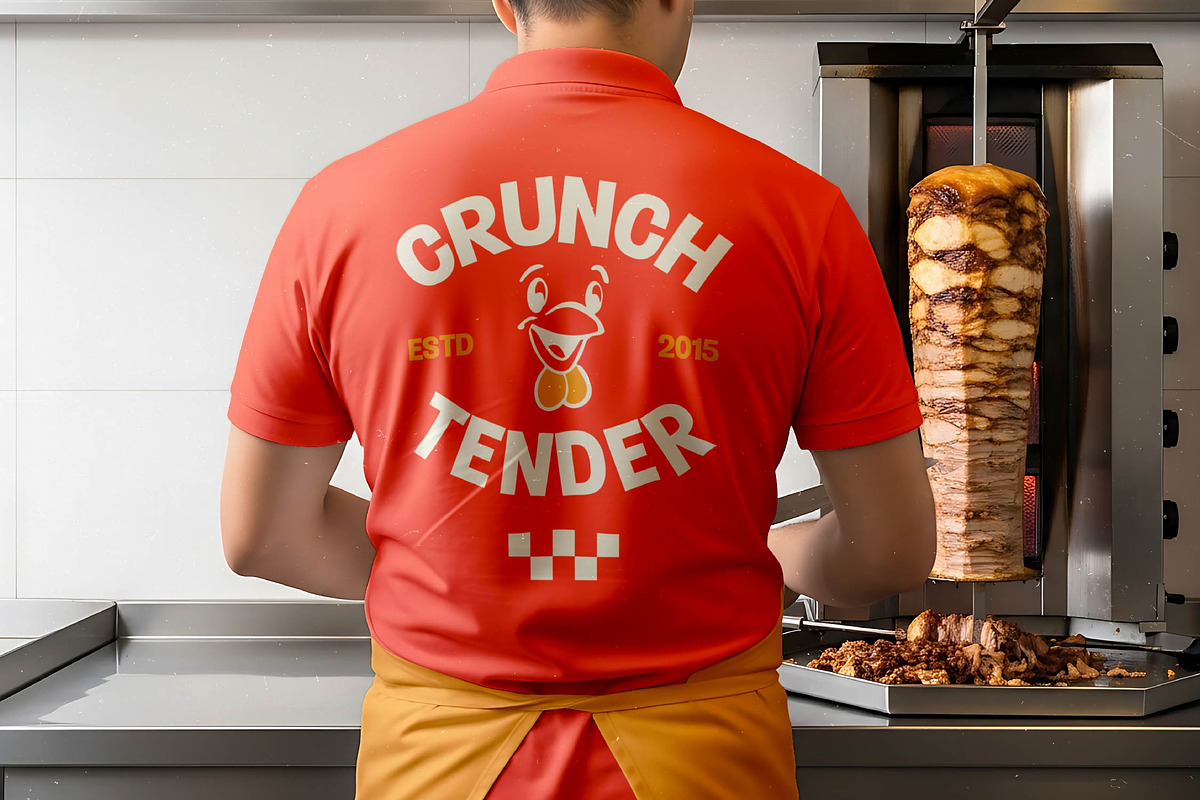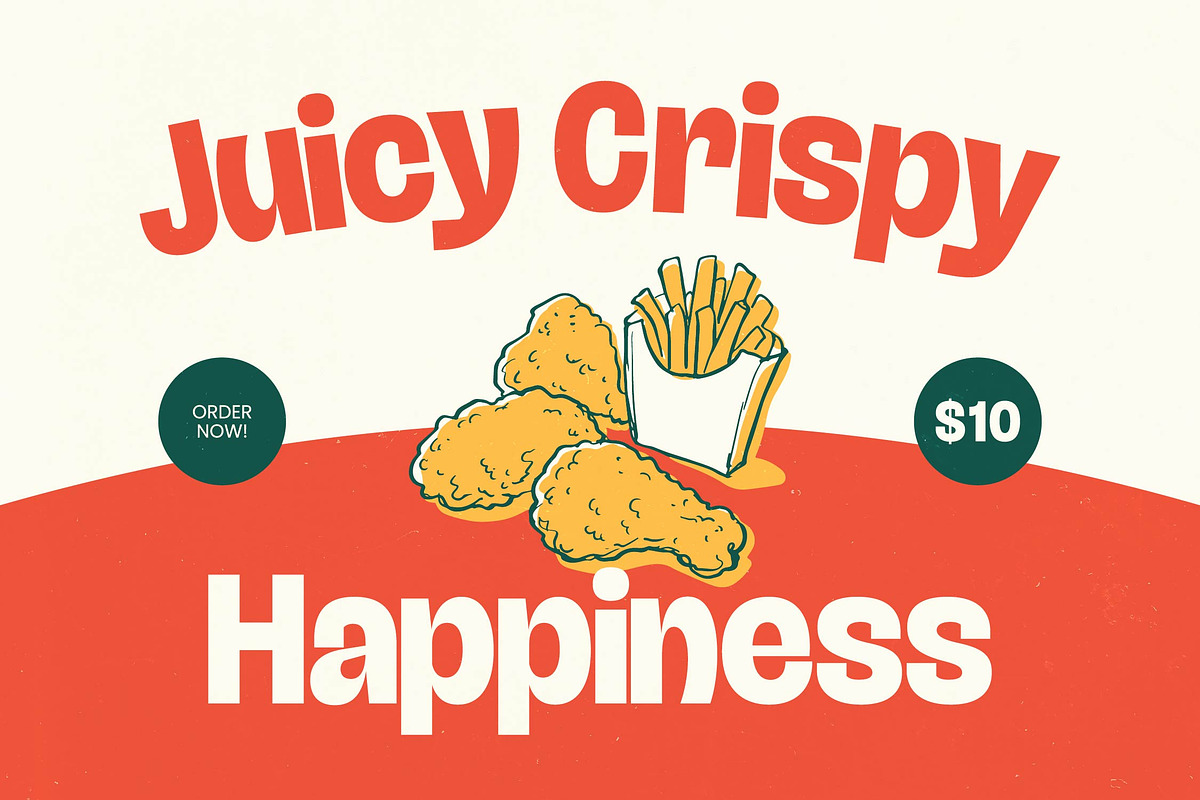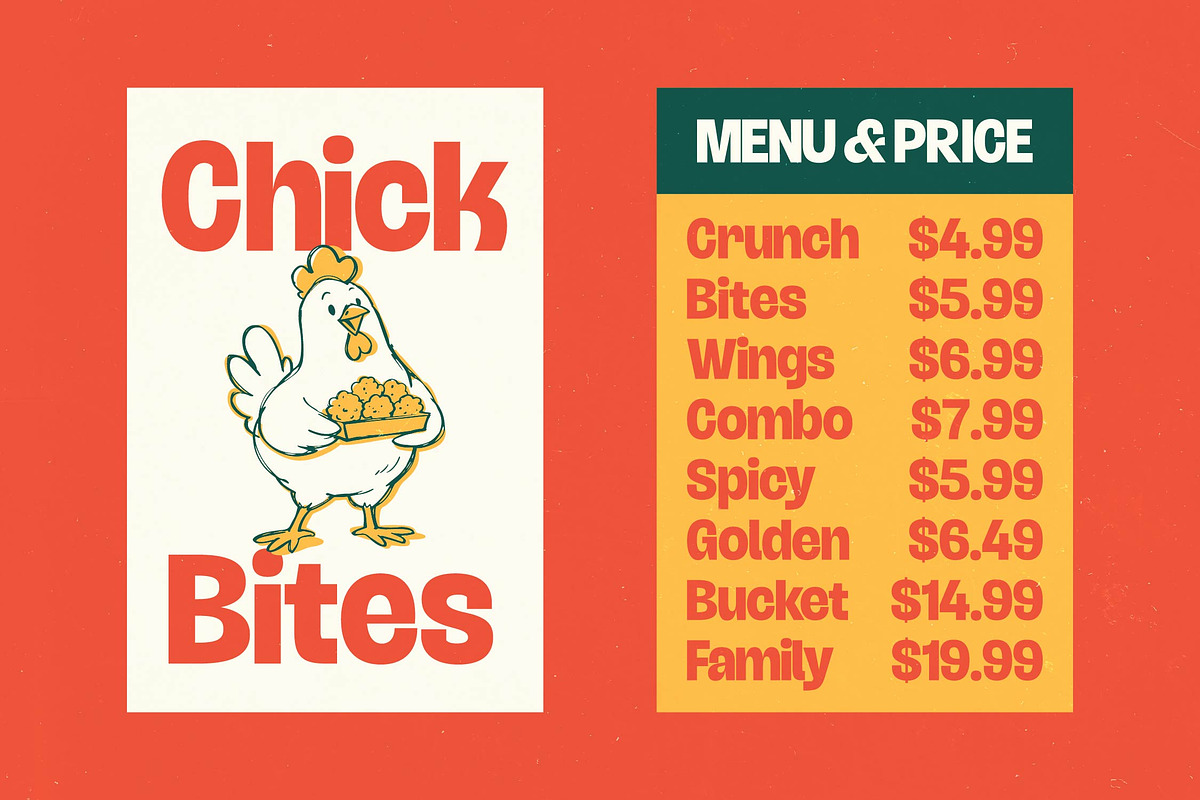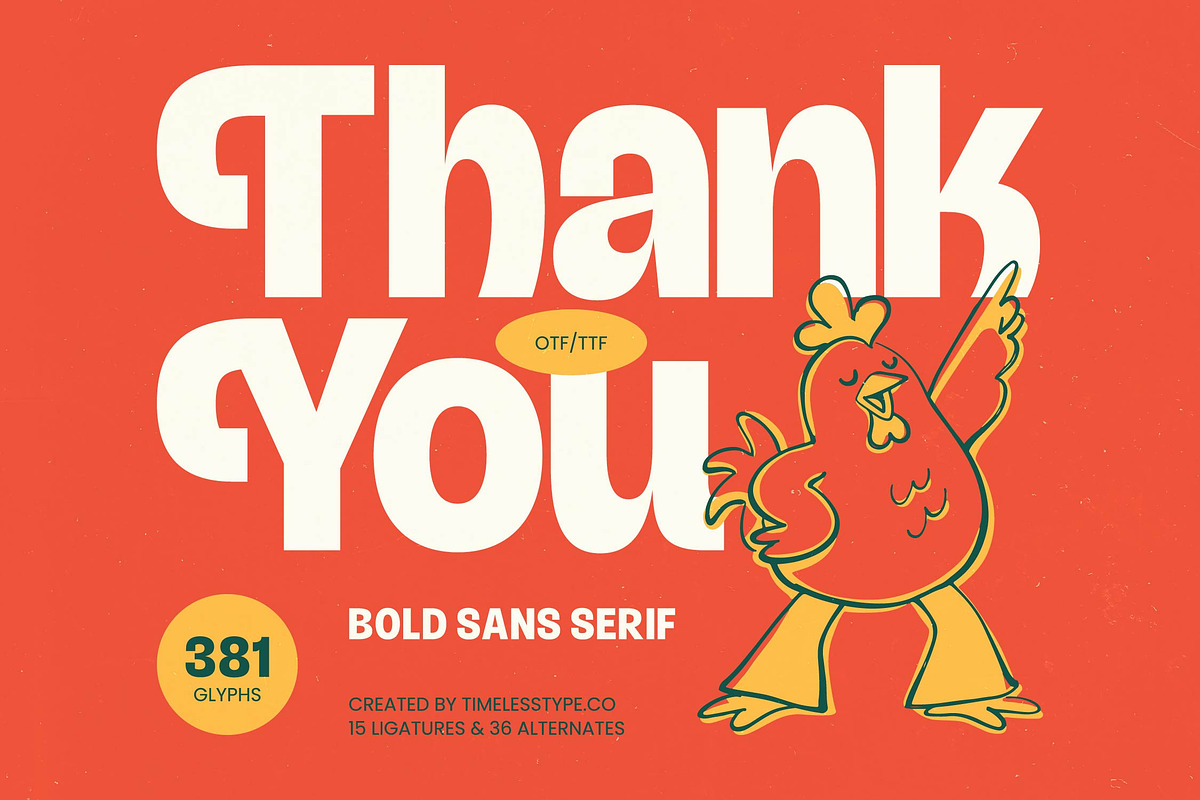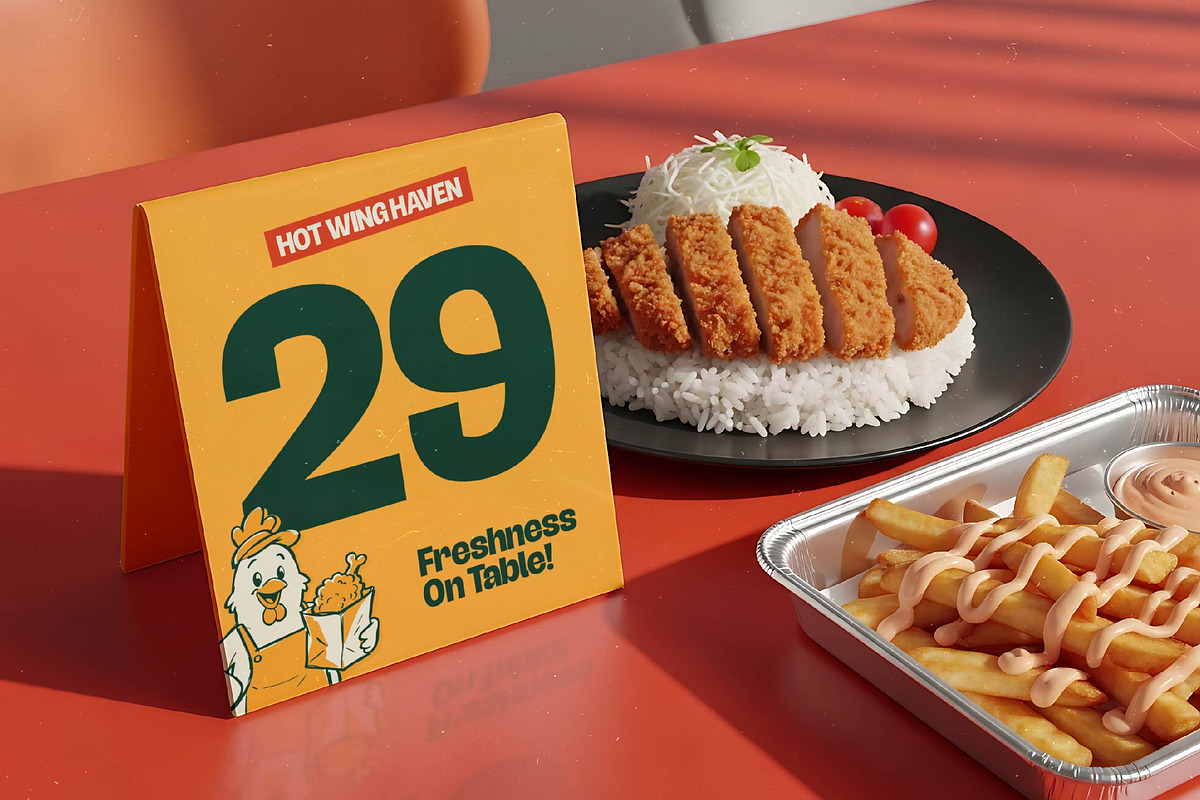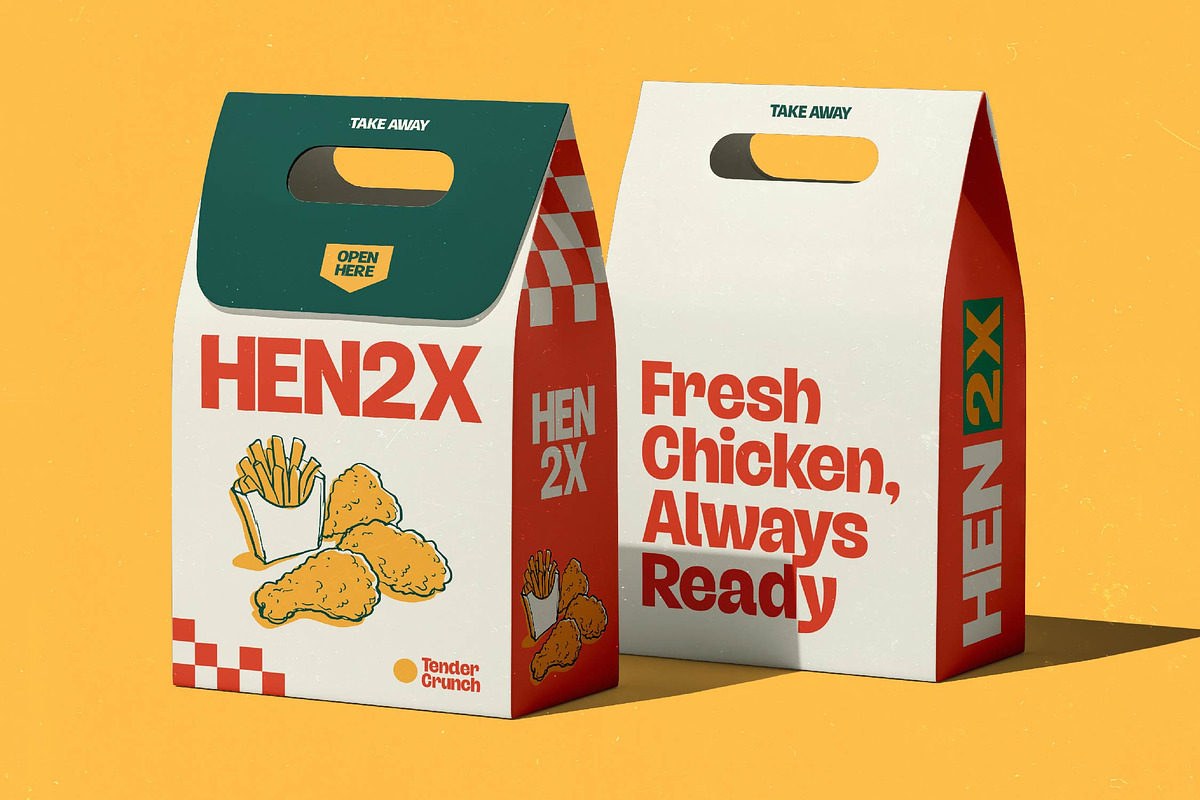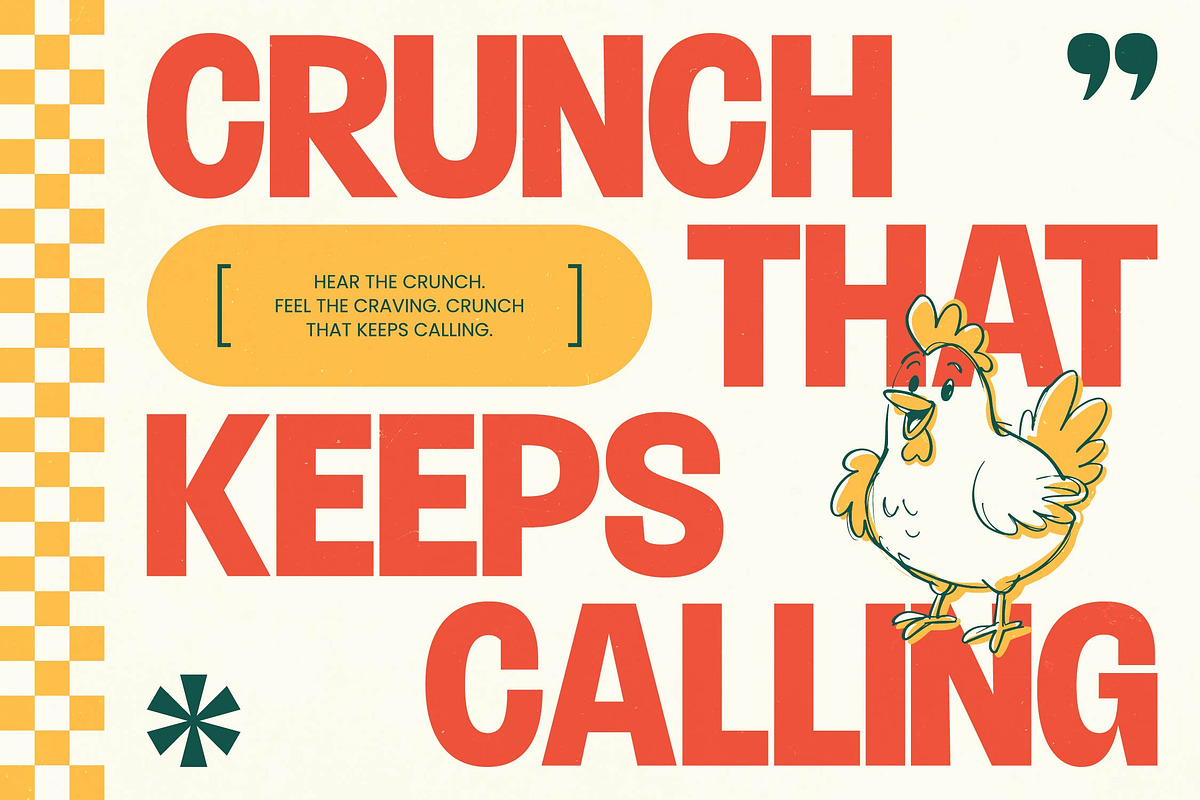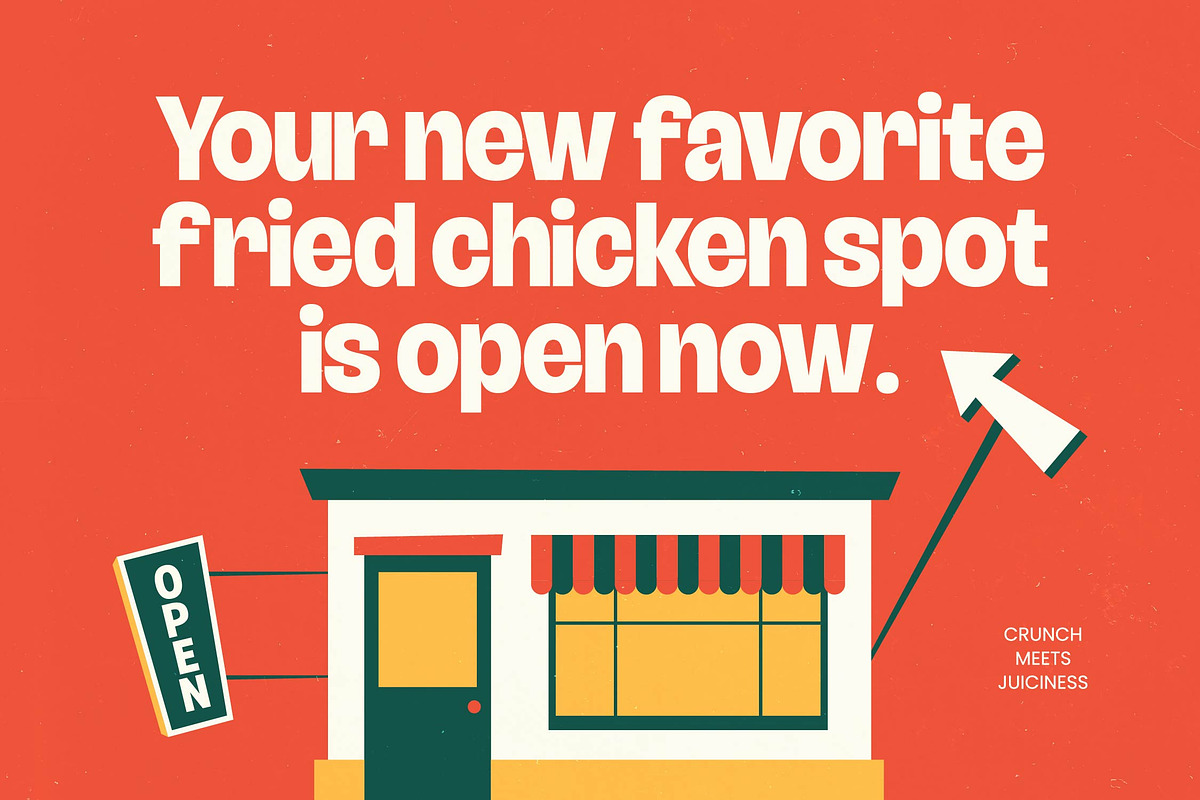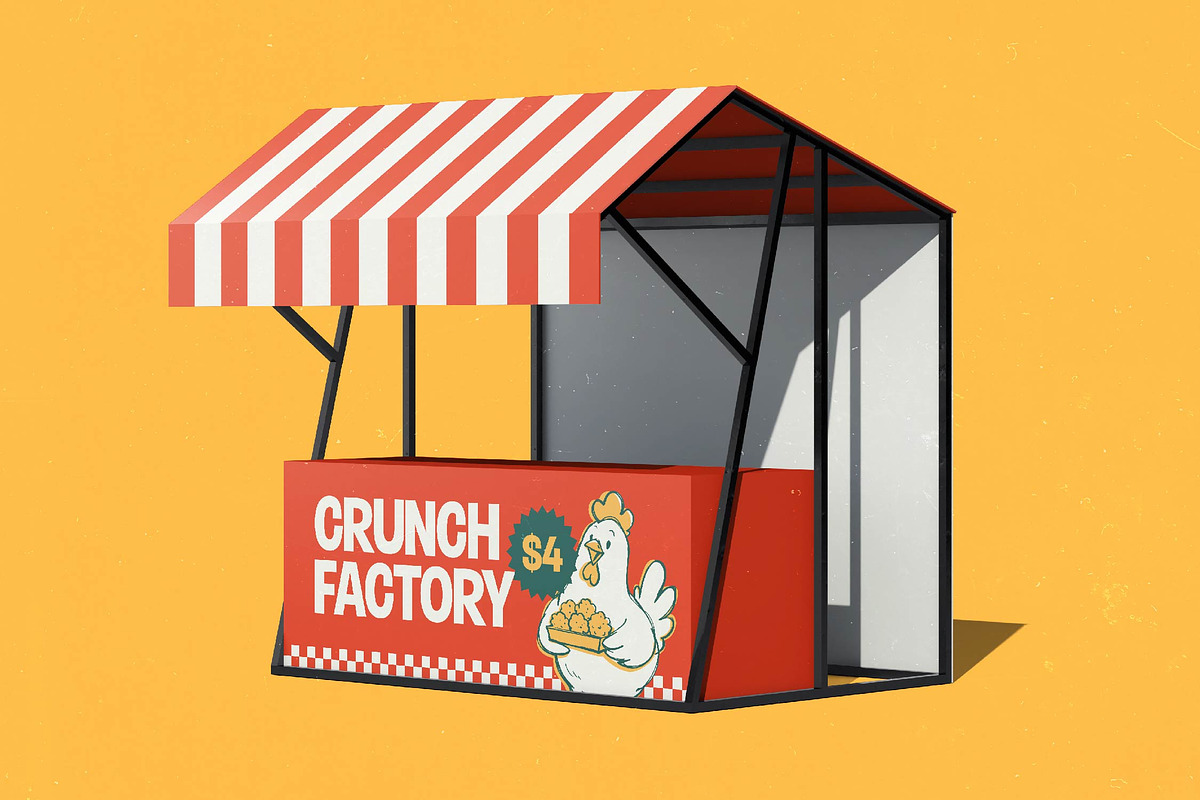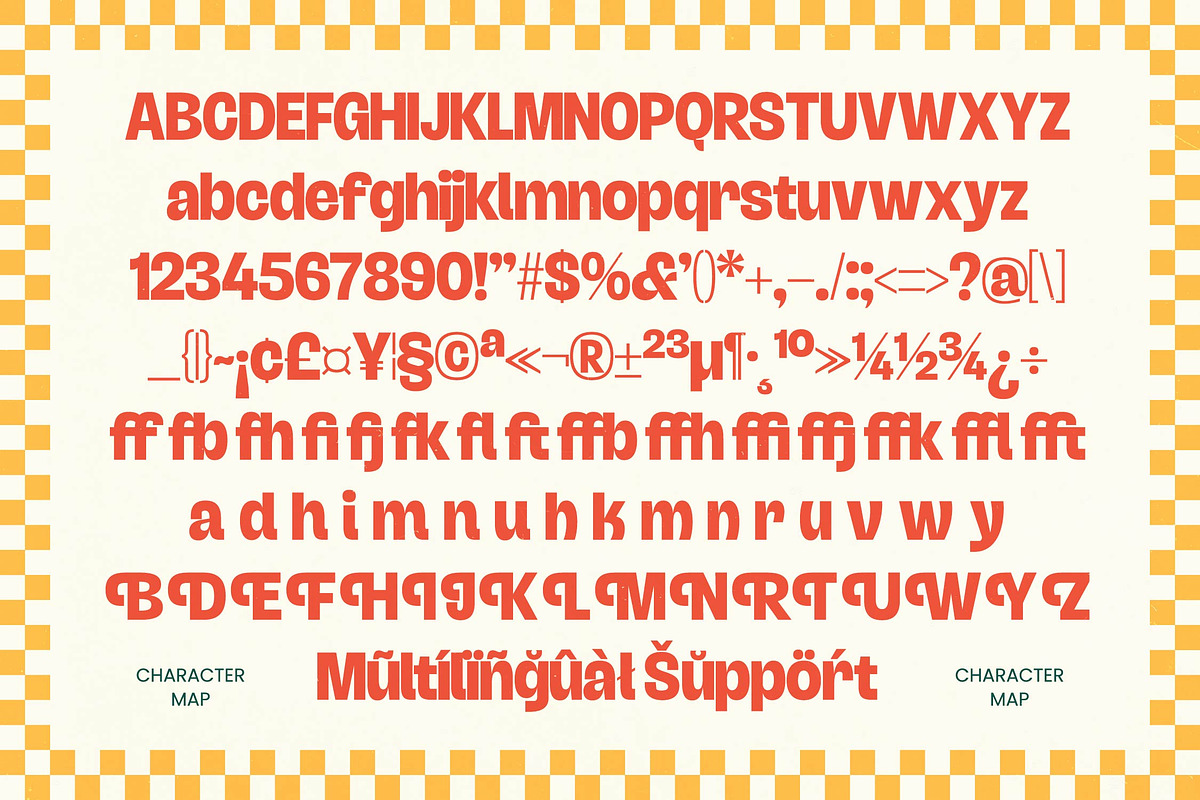
Roster Funy Bold Sans Serif
Roster Funy – Bold Sans Serif , Elevate your brand’s visual identity with a typeface that demands immediate attention and radiates personality. Roster Funy – Bold Sans Serif is a masterclass in bold typography, blending a retro-modern aesthetic with a playful, high-impact weight. This bold sans serif delivers an unmatched presence, making it the premier choice for designers looking to inject vibrant energy and distinctive character into their creative projects.
Experience unparalleled flexibility with a professional font designed to meet the most demanding creative standards. Featuring 381 meticulously crafted glyphs, Roster Funy – Bold Sans Serif includes a rich selection of 15 ligatures and 36 alternates that allow for custom-tailored layouts and unique typographic compositions. With its extensive multilingual support, Roster Funy – Bold Sans Serif adapts seamlessly across global markets, making it incredibly versatile for international projects.
Transform your brand storytelling through strategic and high-impact design applications that resonate with your audience. This typeface is an ideal application for creative packaging, lifestyle branding, and dynamic editorial layouts where a strong, friendly statement is required. Roster Funy – Bold Sans Serif is perfect for logo design, social media graphics, and advertising campaigns that need to stand out with a sense of approachable professionalism and bold confidence.
Secure a definitive competitive edge in the marketplace with a font that expertly balances high-fashion style and functional clarity. Investing in Roster Funy – Bold Sans Serif means choosing a premium display font that transcends fleeting trends to provide lasting commercial value. Its clean lines and expressive curves provide a modern edge that ensures your message is not just seen, but remembered, making Roster Funy – Bold Sans Serif an essential asset for any contemporary design toolkit.